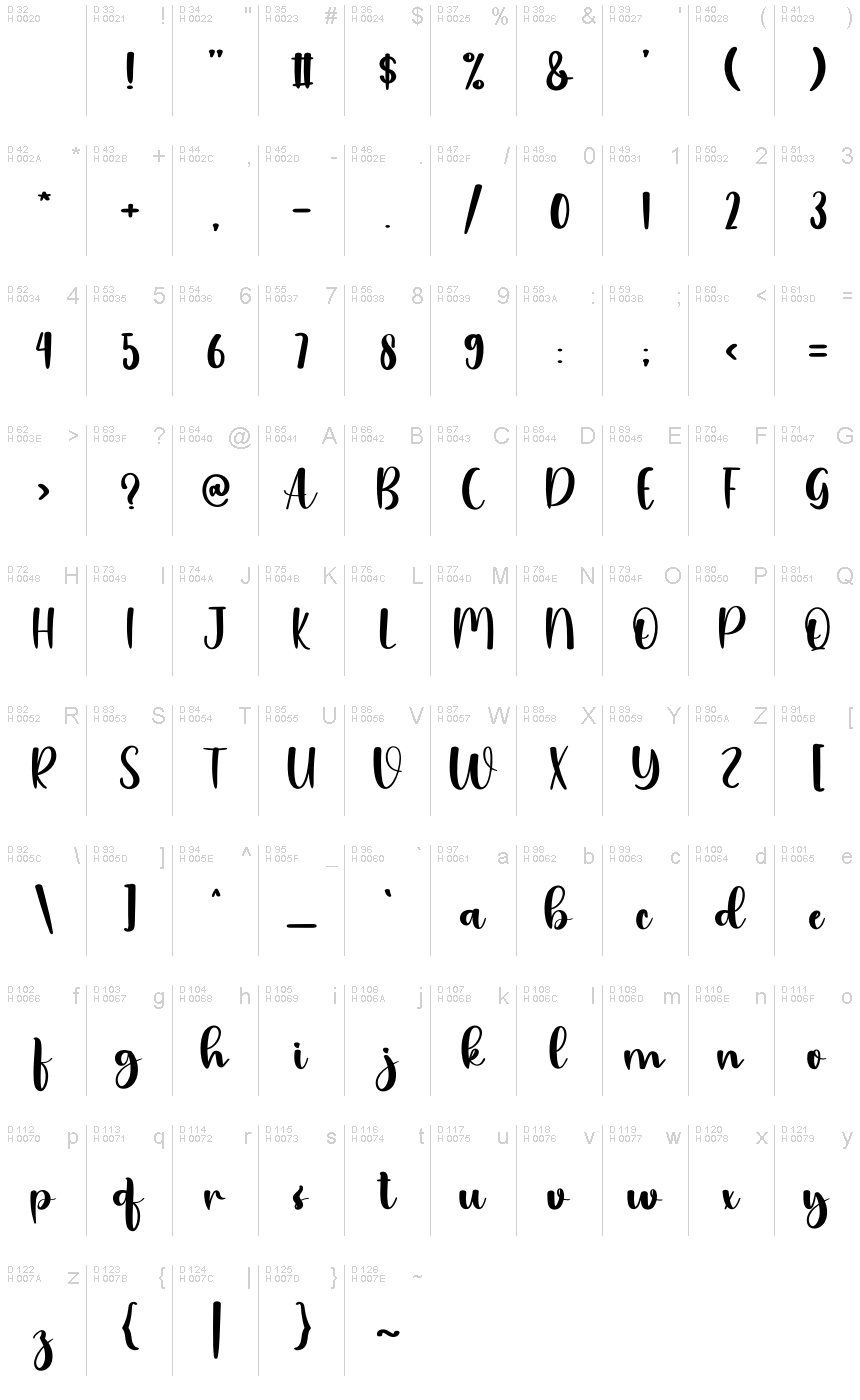
Black Vintage
Black Vintage, a captivating handwritten font crafted by PiPi Creative, exudes a charming, vintage-inspired aesthetic. With its organic, script-like strokes and understated elegance, this font effortlessly evokes a sense of timelessness and nostalgia. The varied letter shapes and natural flow of the design lend an authentic, handcrafted feel, making it a versatile choice for a wide range of applications.
Black Vintage's distinctive style makes it an ideal selection for projects seeking to convey a rustic, artisanal vibe. Its expressive, handwritten quality lends itself beautifully to branding, packaging, and editorial design, where a touch of vintage flair can elevate the overall aesthetic. Additionally, this font's legibility and versatility make it a practical choice for wedding invitations, event materials, and even signage, allowing it to seamlessly blend classic charm with modern functionality.